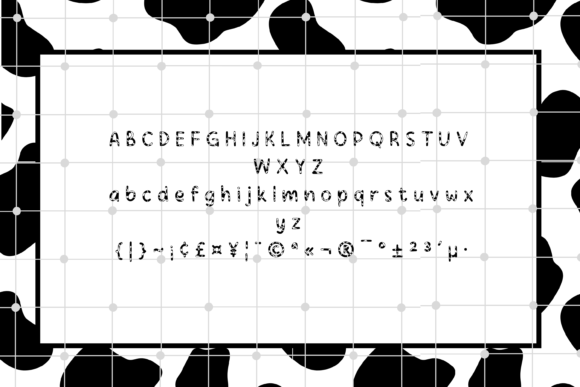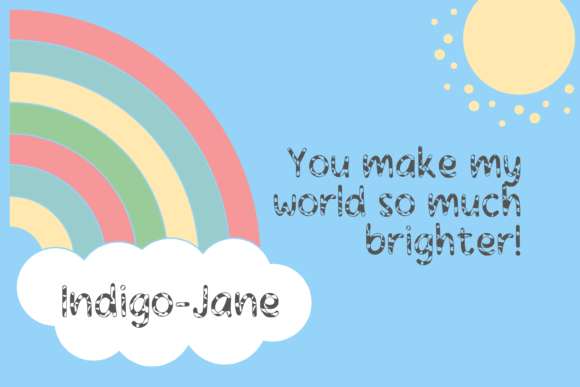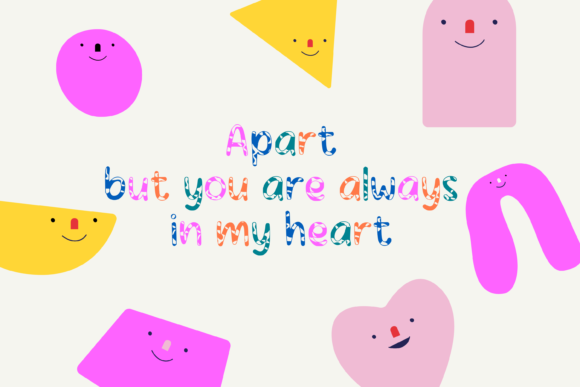
Introduction to Moomilk Font
Remember that moment when you’re brainstorming ideas for a creative project and the perfect font just slips your mind? The excitement of bringing your concept to life is halted, and you’re left staring at a blank page, wondering what would complete the look. For designers, finding the right font can be a challenge, but what if we told you about a game-changer – the Moomilk Font.
This delightful decorative font is a breath of fresh air in the world of design resources. With its neat lettering and joyful vibe, Moomilk Font is the perfect addition to any project, whether you’re working with a transparent background or a high-quality image. The best part? It’s free to download, making it an invaluable asset for designers on a budget.
Key Features of Moomilk Font
- High-quality, unique design perfect for creative projects and design resources.
- Includes a transparent background option for versatile design applications.
- Supports a wide range of resolutions and sizes, making it suitable for various design needs.
- Designed to be highly legible and visually appealing, with a modern aesthetic.
- Can be easily customized and edited using popular design software.
Honest Review: Moomilk Font
As a designer, I’m always on the lookout for high-quality design resources to elevate my creative projects. Recently, I had the chance to work with the Moomilk Font, and I must say it’s a delightful addition to any design palette.
- ✨ What works well: The Moomilk Font is incredibly versatile and comes in a range of weights and styles, making it perfect for a variety of design applications.
- ✨ What works well: The transparent background feature allows for seamless integration with images and graphics, giving my designs a professional finish.
However, there are a few limitations to consider: ⚠️ The font may not be suitable for large-scale commercial use, and some users have reported issues with kerning in certain applications.
Overall, I’m thoroughly impressed with the Moomilk Font. Its high quality, range of styles, and transparent background feature make it an excellent choice for designers looking for a reliable and flexible design resource. Whether you’re working on a personal project or a commercial campaign, the Moomilk Font is definitely worth considering.
How to Use Moomilk Font
The Moomilk Font is a high-quality, free design resource ideal for creative projects. This versatile font features a transparent background, making it perfect for overlaying on images or text.
To get the most out of the Moomilk Font, experiment with different font sizes, colors, and styles. You can also use it in combination with other design elements to create a unique look.
The Moomilk Font is ideal for creative projects such as logos, social media graphics, and infographics. Its transparent background makes it perfect for overlaying on images or text, creating a visually appealing design.